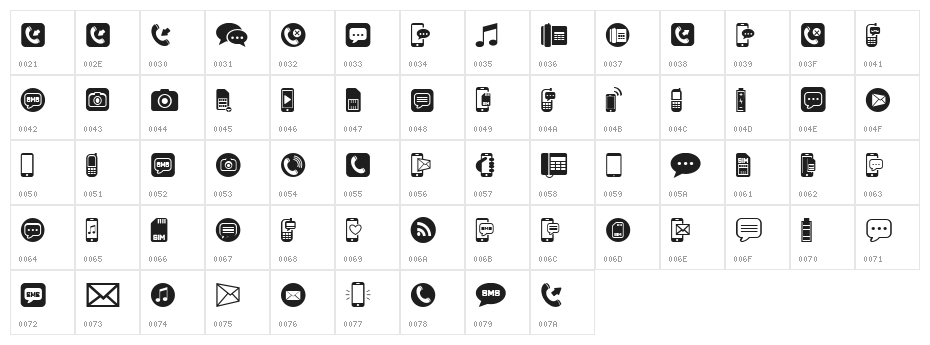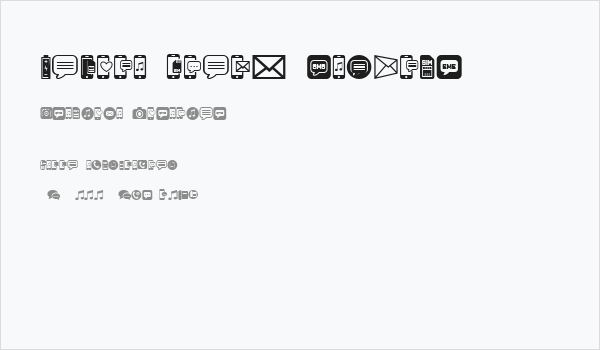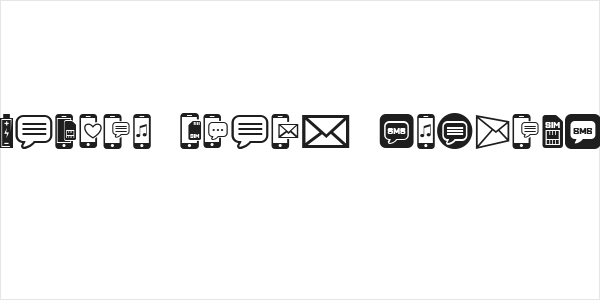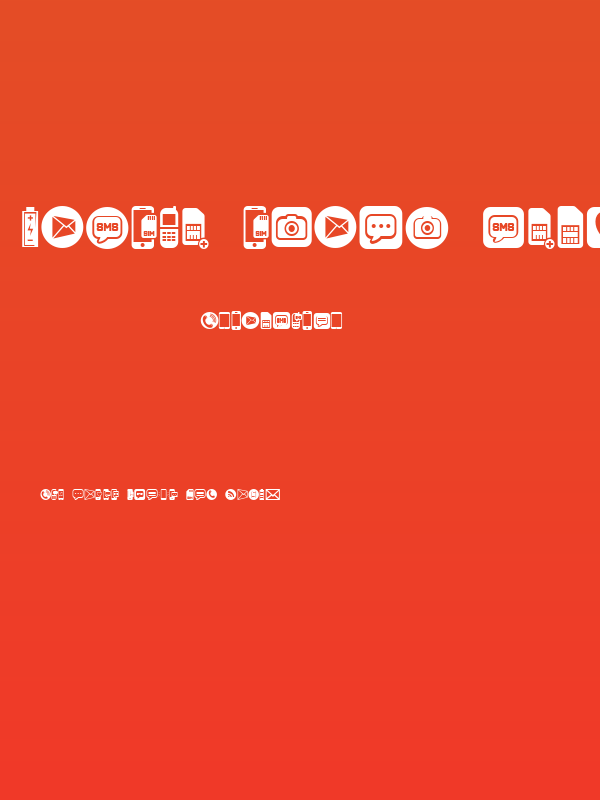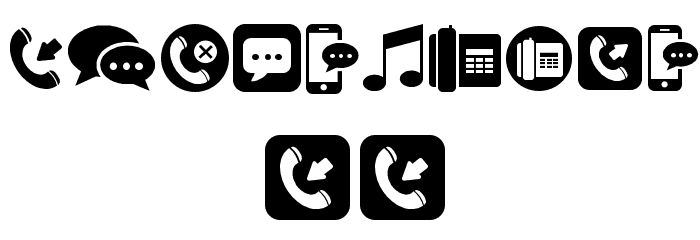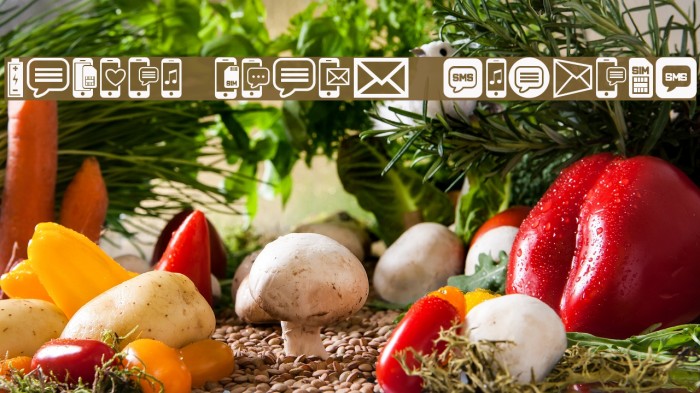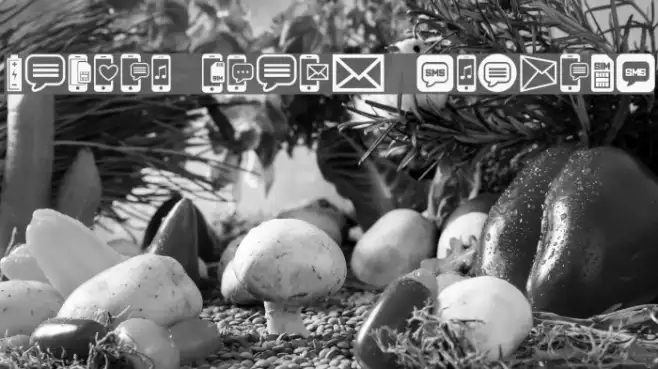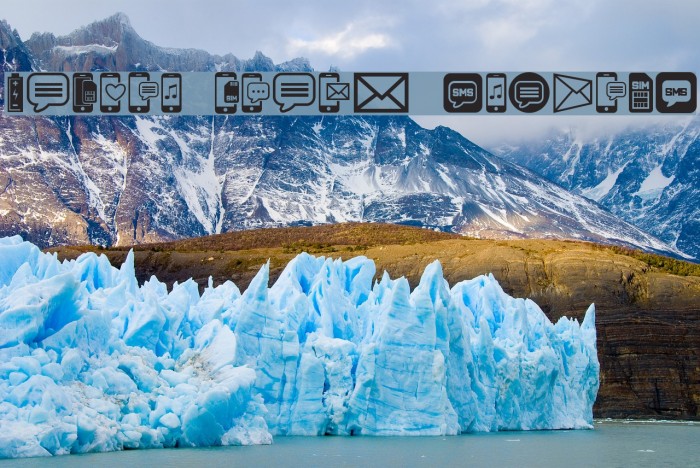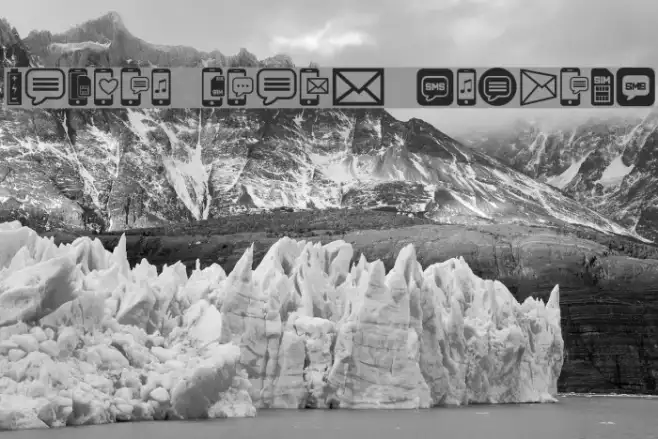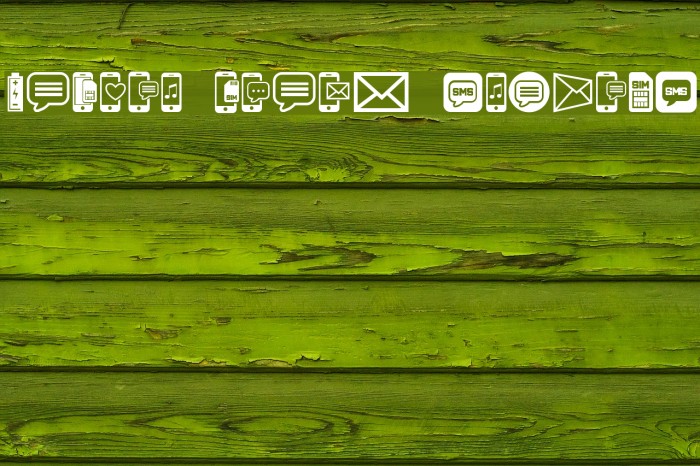
Mobile Icons Regular Font
Mobile Icons Regular Description
A set of bold, monochrome mobile and communication-themed icons featuring phones, messages, cameras, SIM cards, batteries, and various interface elements. The icons are highly legible, geometric, and designed for clarity at small sizes.
| Overall Style | Modern, Functional |
| Use Case | Icons, UI elements, buttons, infographics |
| Proposed Projects | Mobile app UI, web dashboards, communication tools, tech presentations, infographics. |